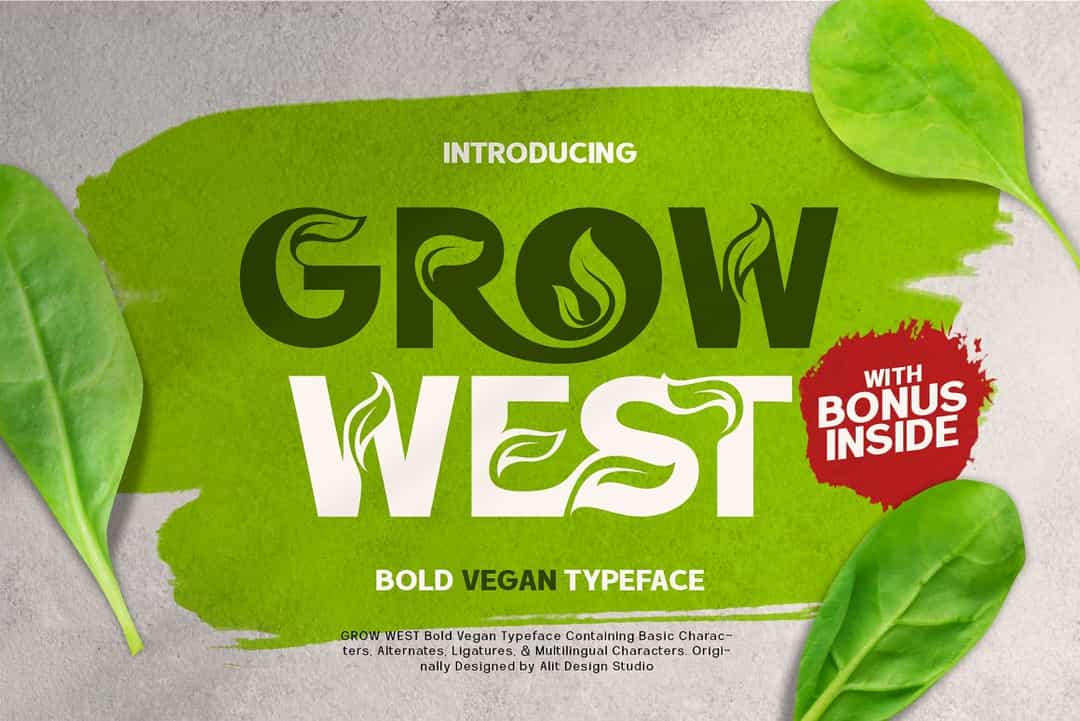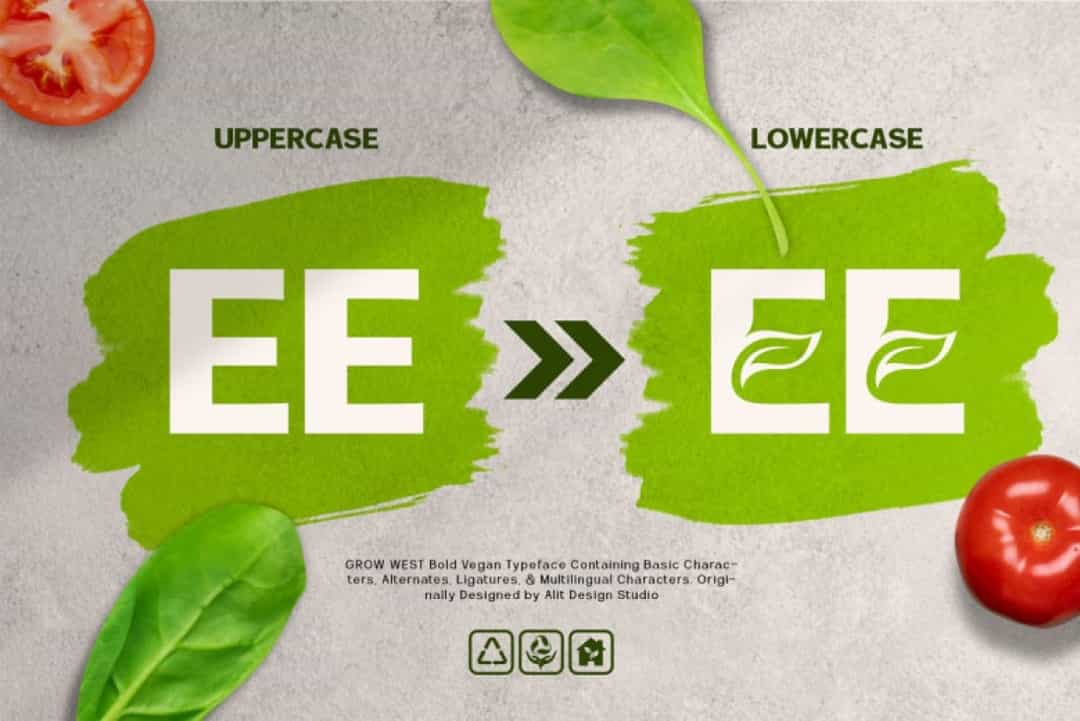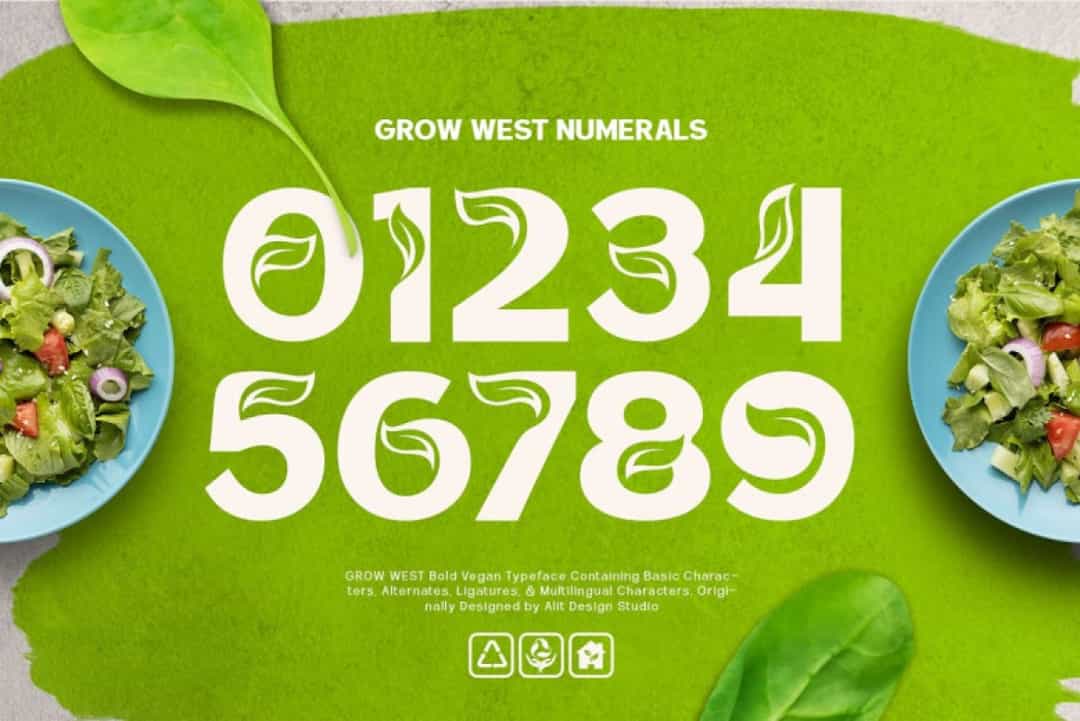
Grow West font is designed to inspire us all towards living a more sustainable future, taking a stand for nature and environmental awareness with this remarkable typographical masterpiece that puts your green message front-and-center. Grow West stands for sustainability, growth and the beautiful nature of our world; making a bold statement.